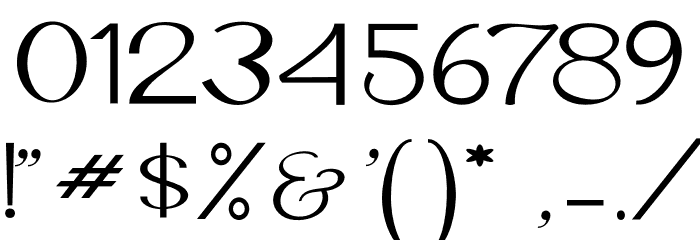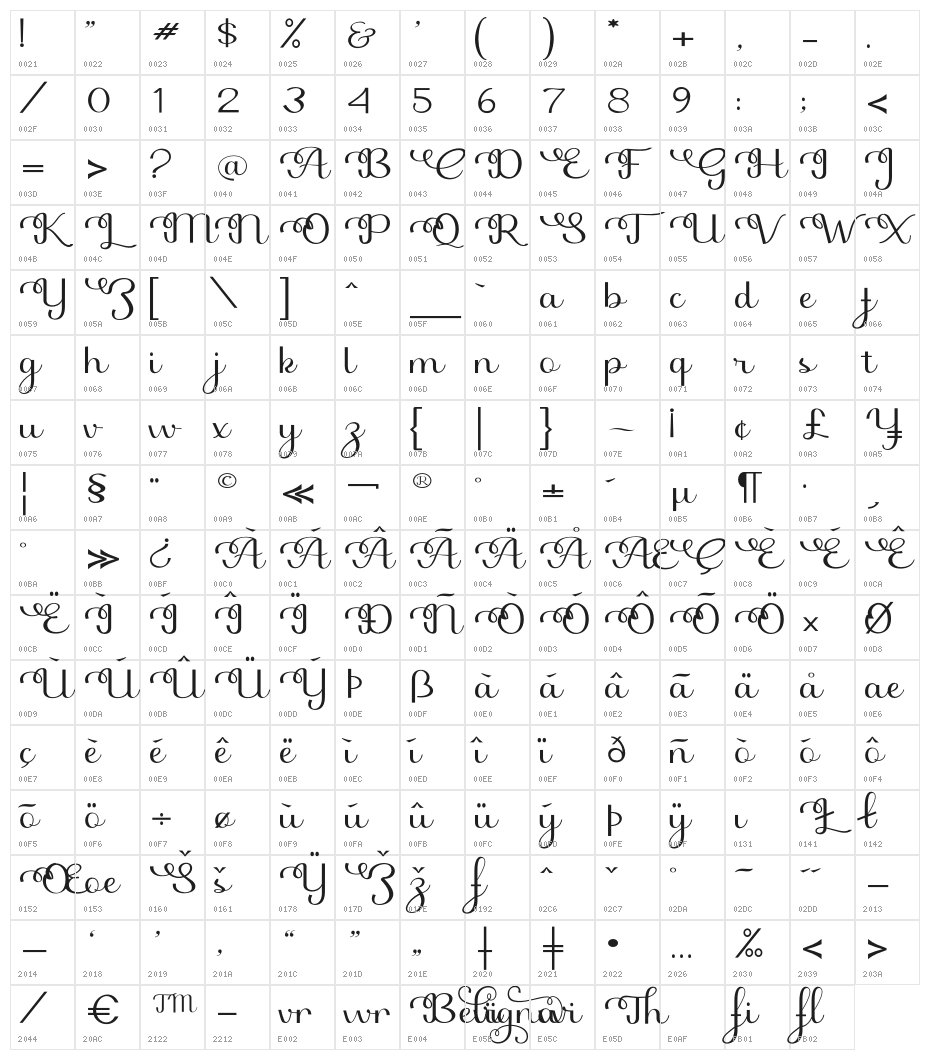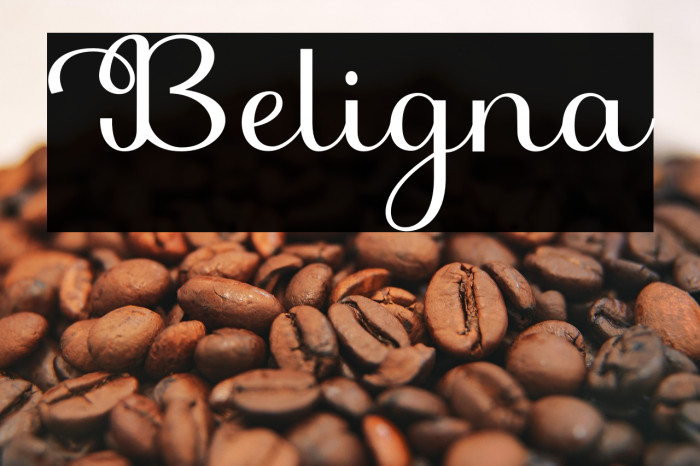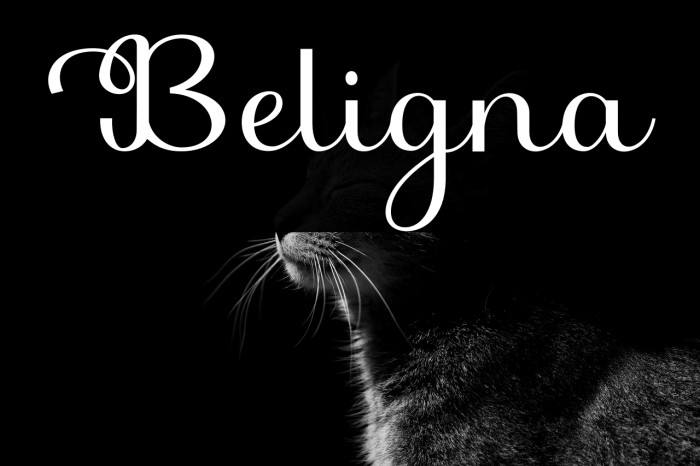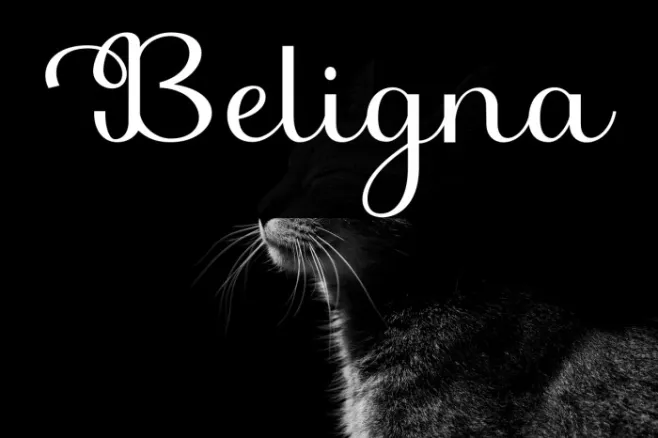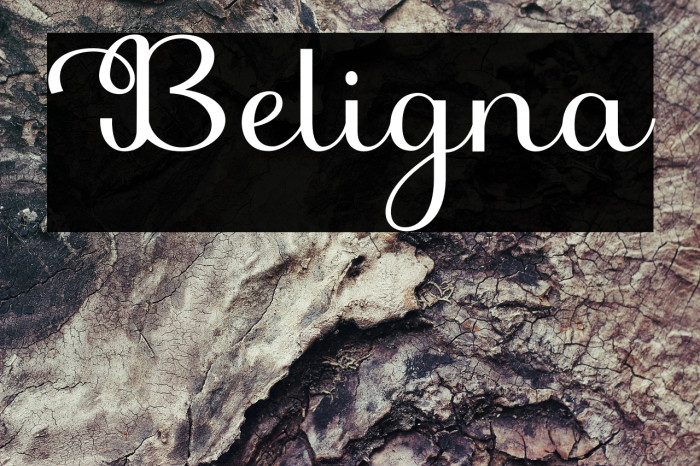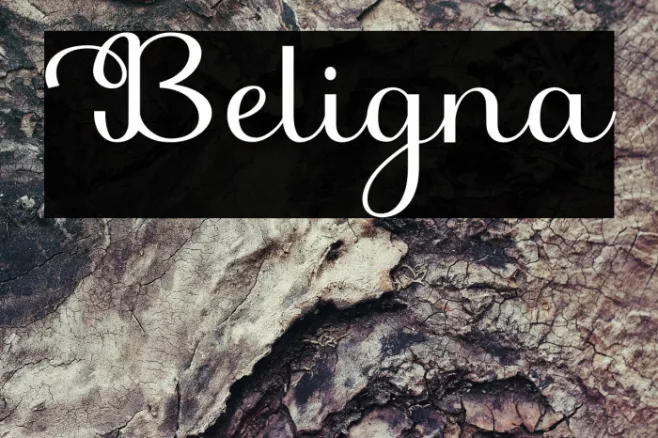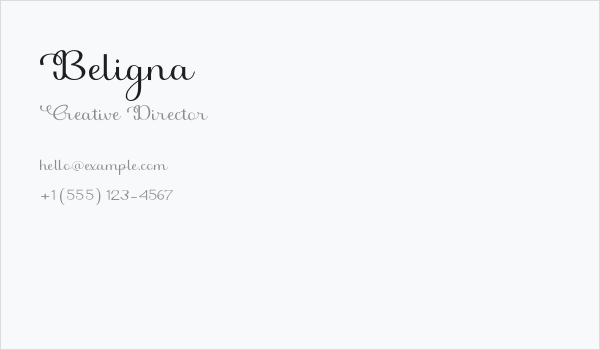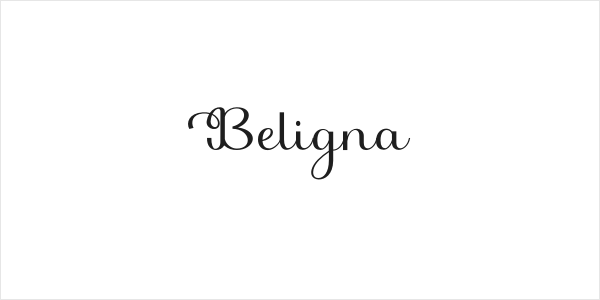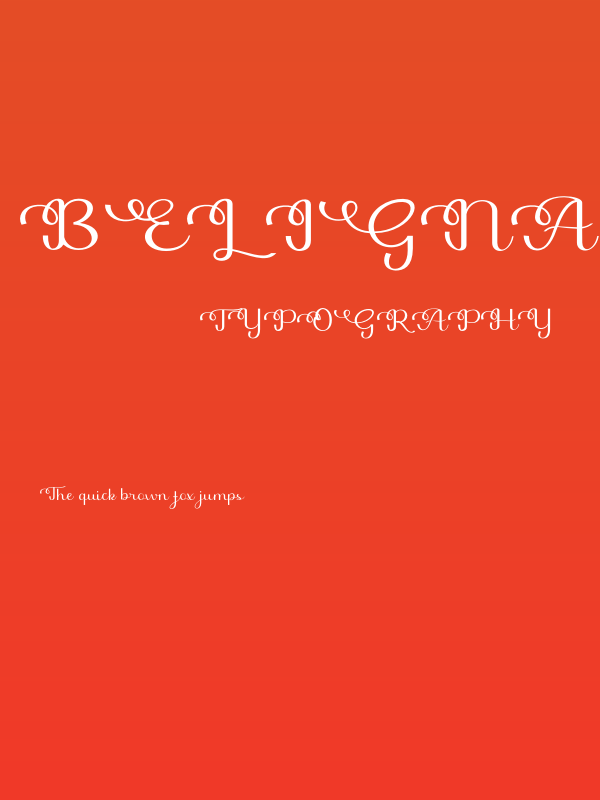
Beligna Font
Beligna Description
This font features a unique blend of elegance and playfulness, characterized by its flowing, cursive style. The uppercase letters are adorned with decorative swashes, adding a touch of sophistication and flair. The lowercase letters maintain a smooth, connected script that enhances readability while preserving artistic charm. Numbers are bold and clear, ensuring legibility. Special characters are thoughtfully designed to match the overall aesthetic, making this font versatile for various creative applications. Its distinctive style makes it suitable for projects that require a personal, elegant touch.